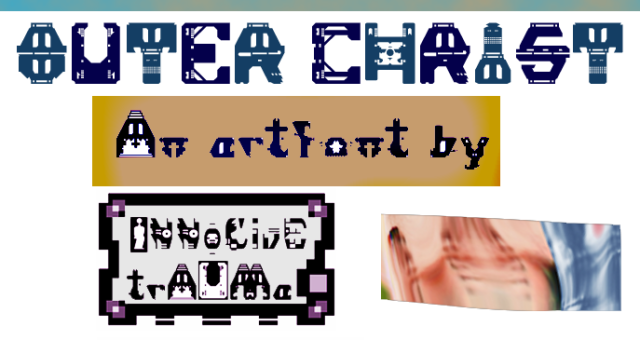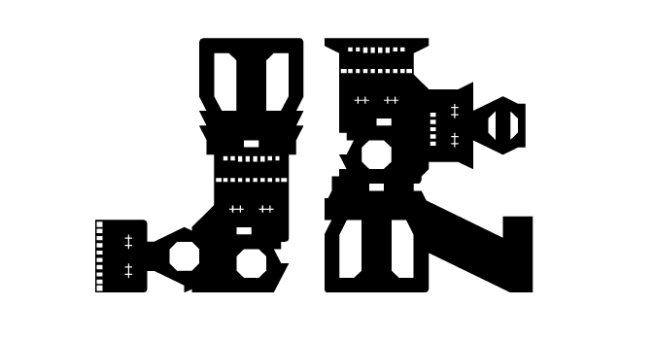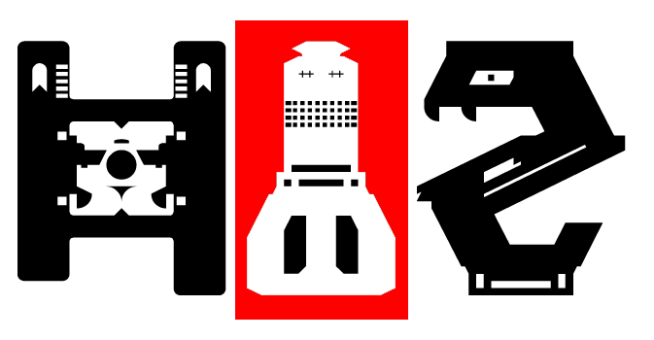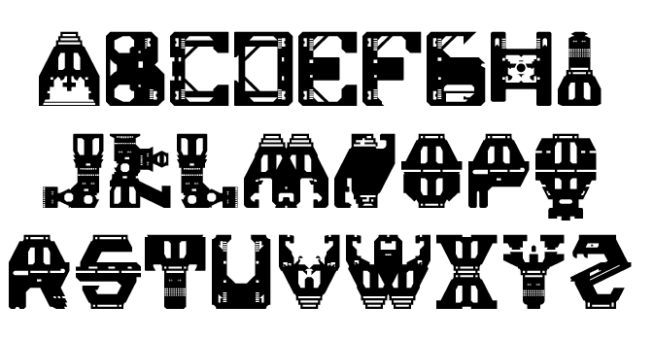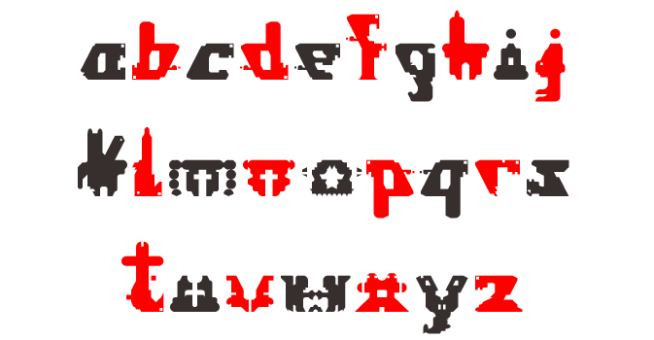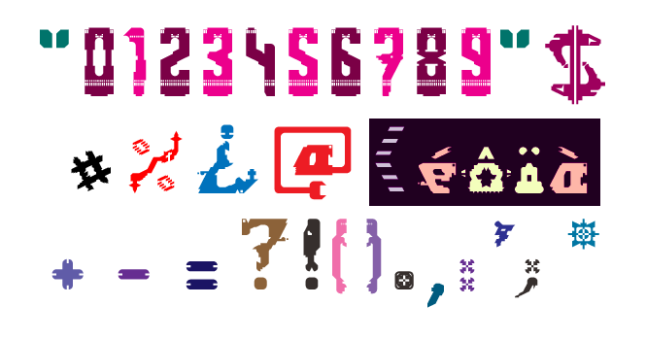
trAUMa 89 / Outer Christ
"Outer Christ", like all the "trAUMa" series, works at the frontier between Art & Type Design, Figuration & Abstraction, each font is a comprehensive world in which every glyph is a "living" entity. But put together they can produce your messages in the most accurate way.